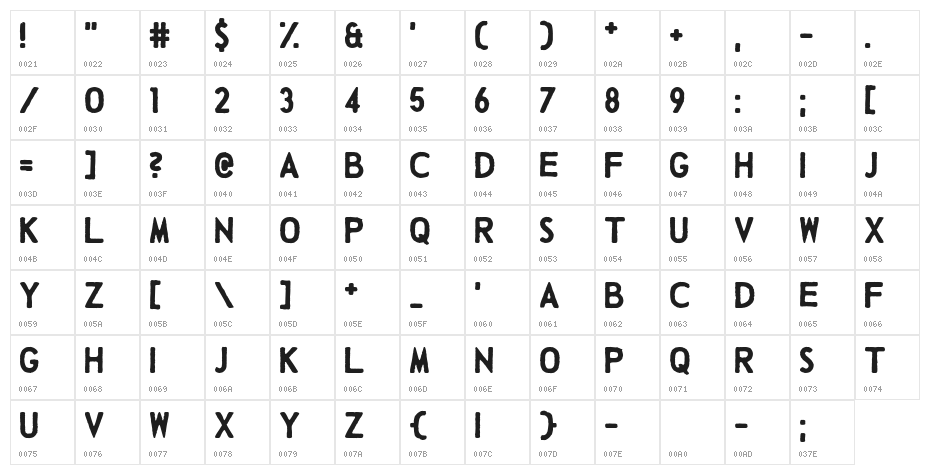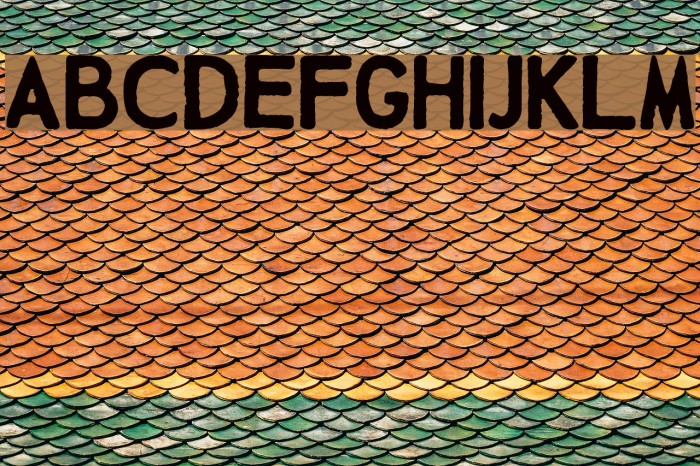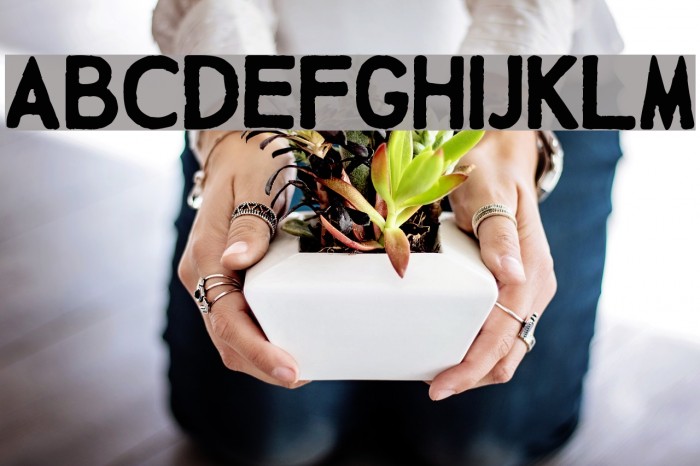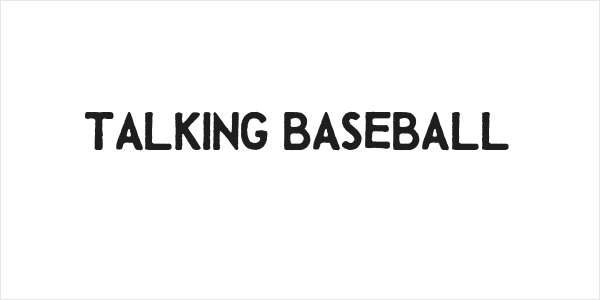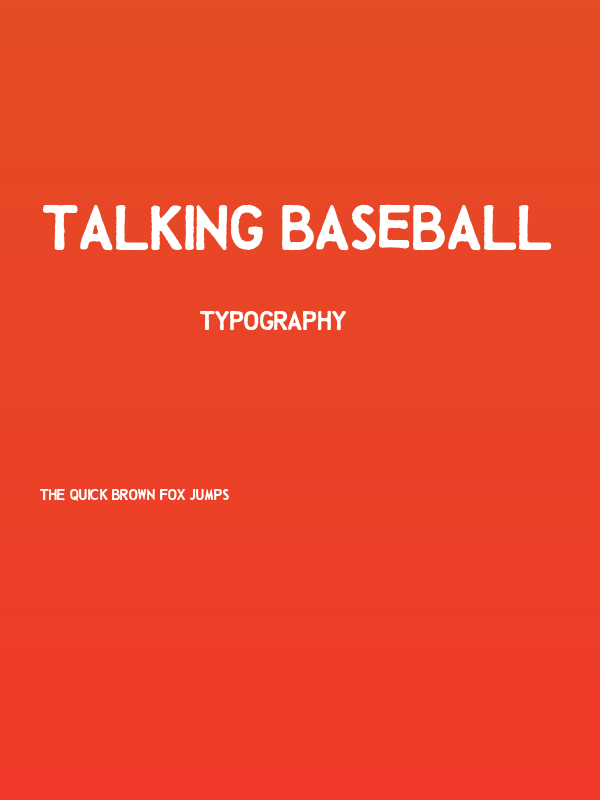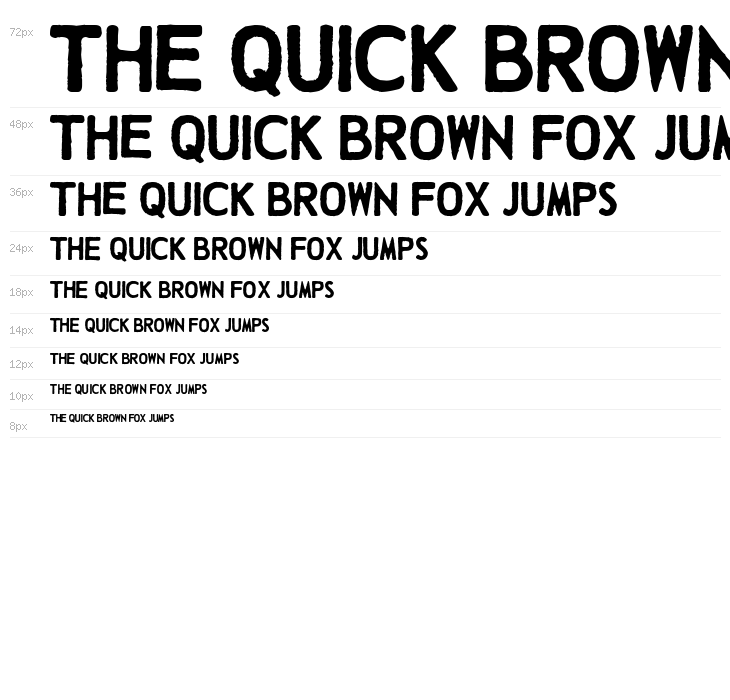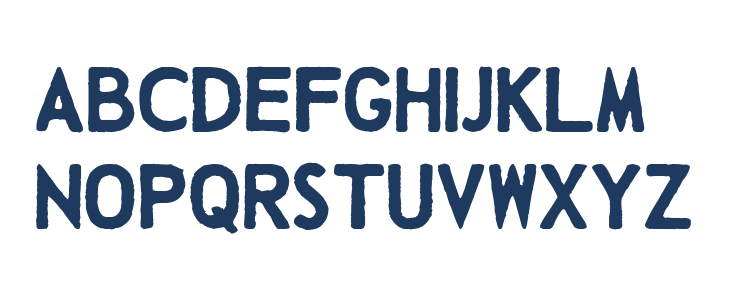
Talking Baseball Font
Talking Baseball Description
This font features a bold, hand-drawn style with a playful and slightly rugged appearance. The characters are thick and have a textured look, reminiscent of vintage sports or collegiate themes. The uppercase letters are uniform in height, while the numbers and special characters maintain the same boldness, ensuring consistency across all glyphs. The font's design suggests a casual, yet impactful presence, making it suitable for projects that require a strong visual statement.
| Proposed Projects | Ideal for sports-themed posters, retro branding, event flyers, and apparel design. |